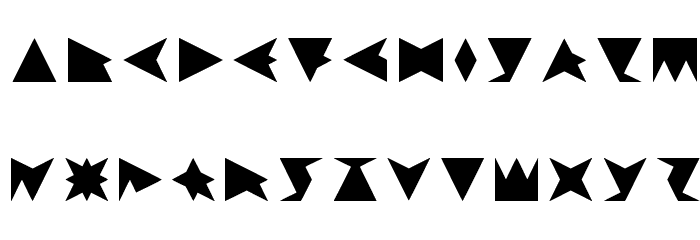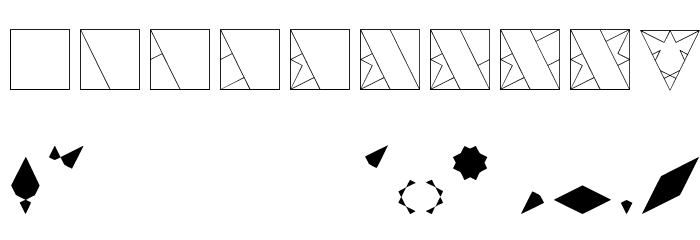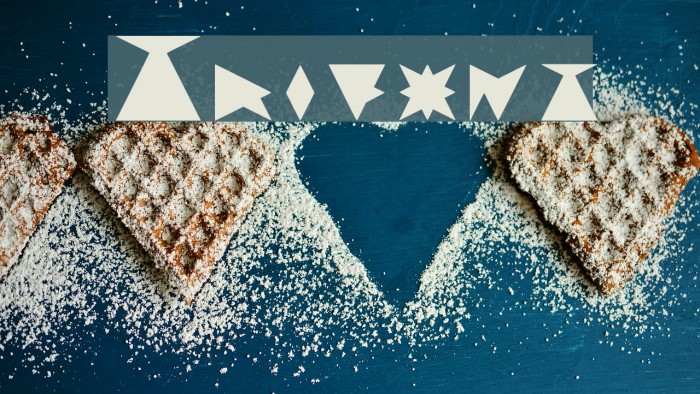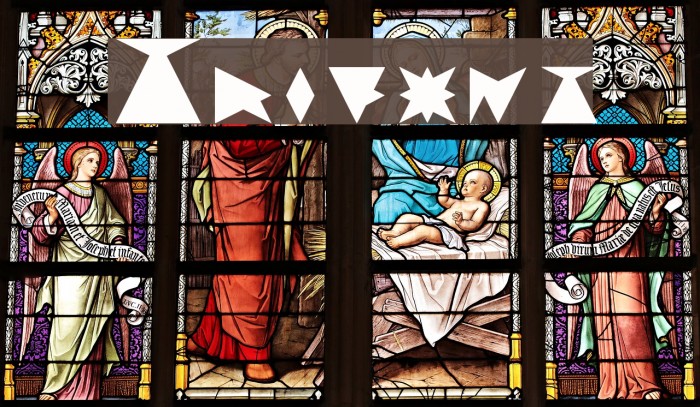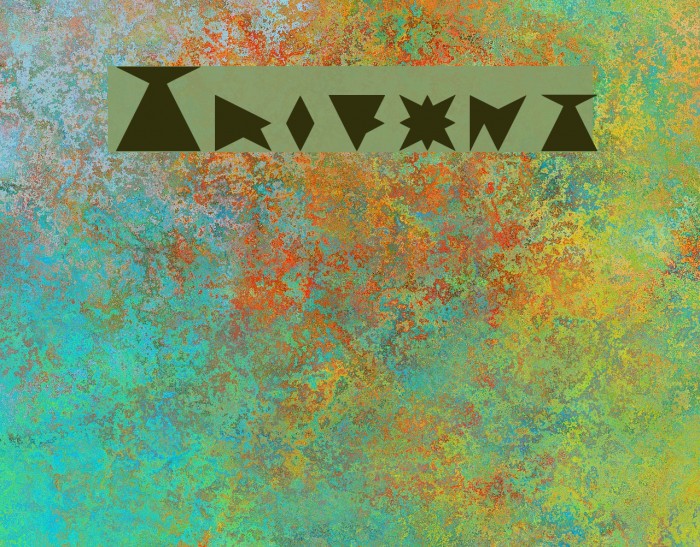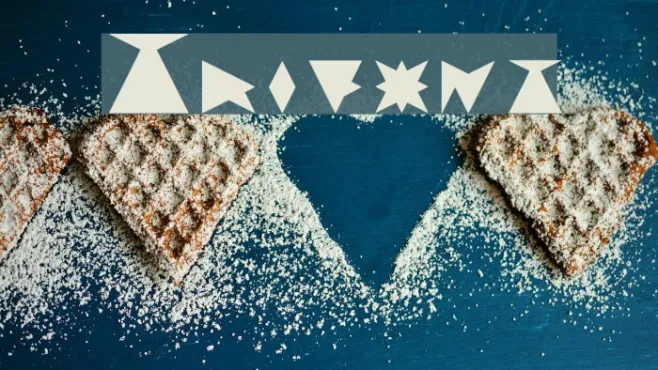
Trifont Font
This font features a highly geometric and abstract design, characterized by sharp angles and bold shapes. Each character is crafted with a unique triangular and polygonal structure, creating a visually striking and unconventional appearance. The uppercase and lowercase letters maintain a consistent style, emphasizing symmetry and angularity. The numbers and special characters follow the same geometric theme, adding to the font's cohesive look. This font's distinct style makes it stand out, offering a modern and artistic flair that is both eye-catching and memorable.
A geometric and abstract font with sharp angles and bold shapes.
- Font: Trifont
- Proposed Projects: Ideal for modern art projects, avant-garde branding, or futuristic design themes.
- Use Case: Logos, Posters, Artistic Displays